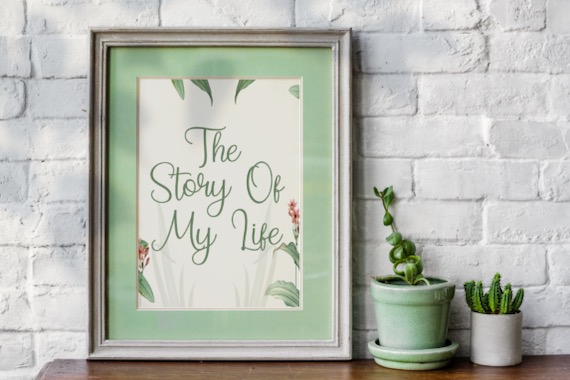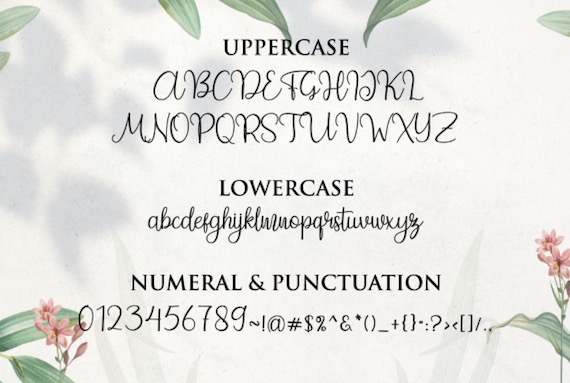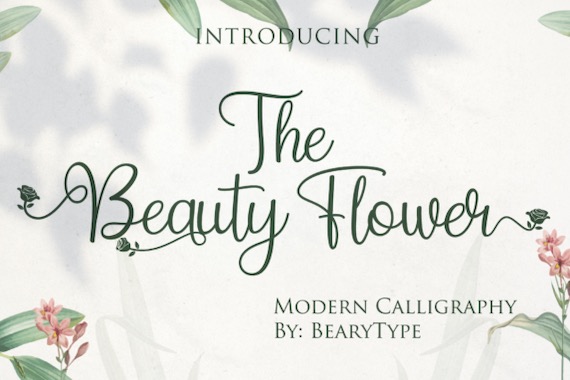
The Beauty Flower Font has a classy and modern look. It was created and shared by LetterBeary Studio. This handwritten script font brings inside its character a unique calligraphy style.
The Beauty Flower Calligraphy Font